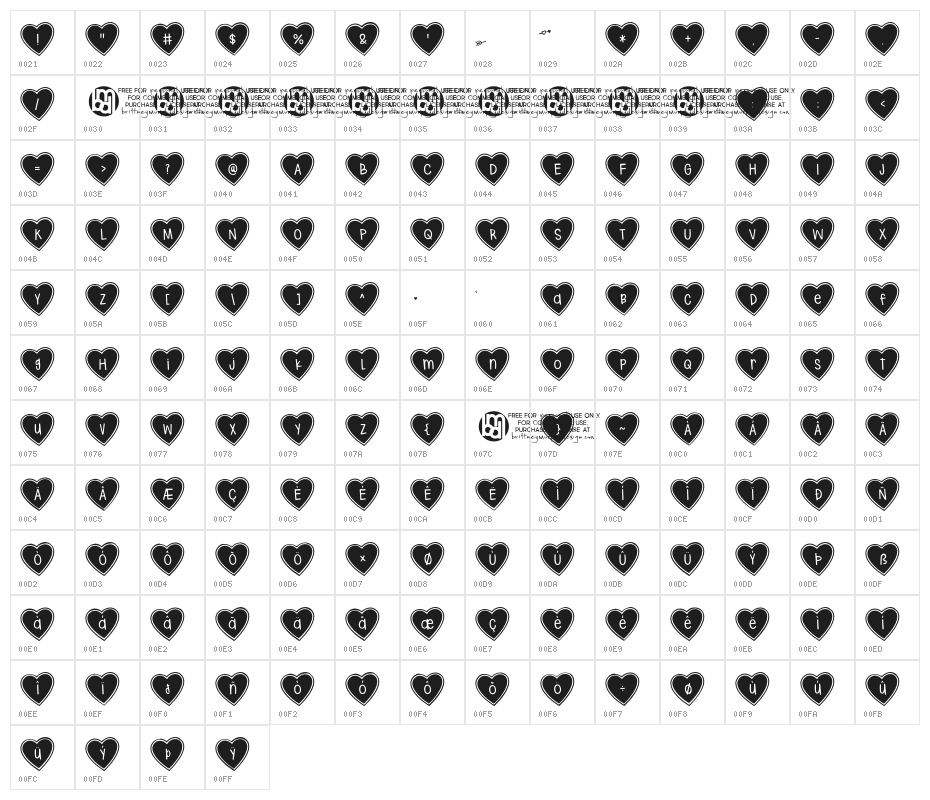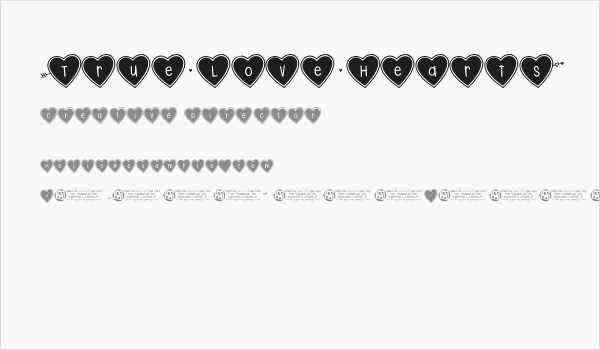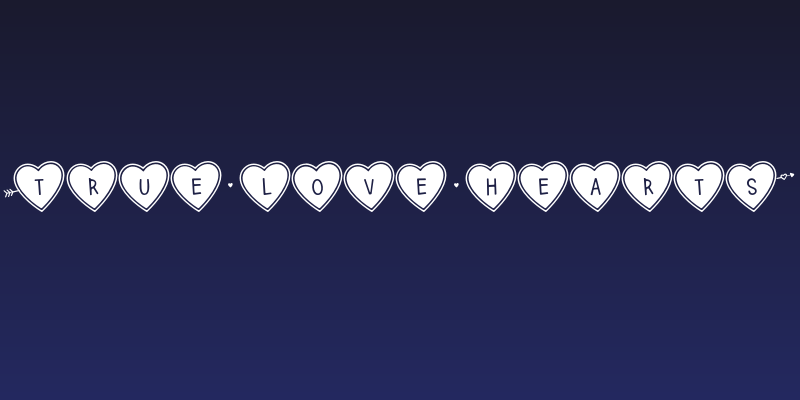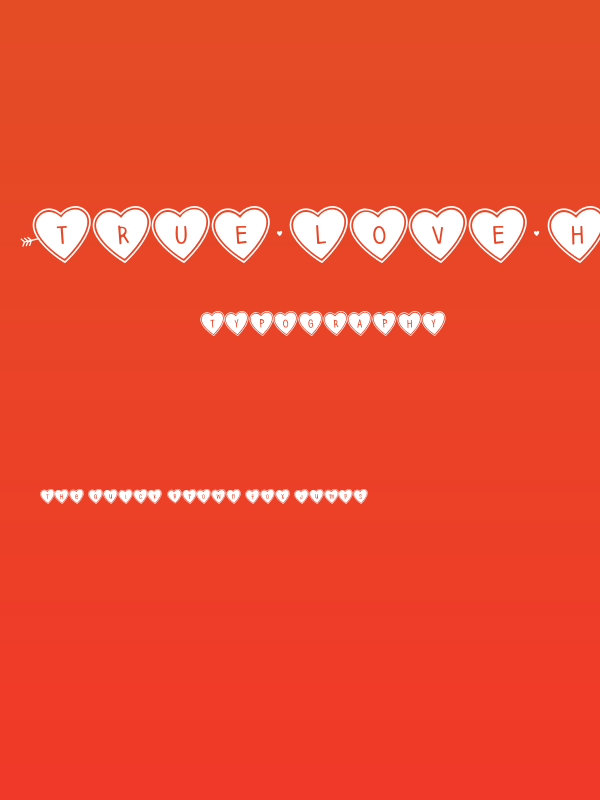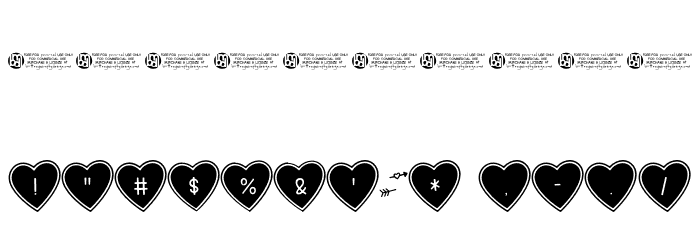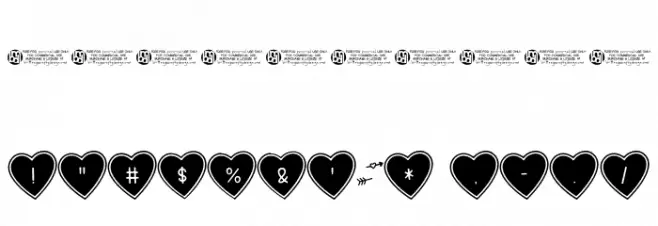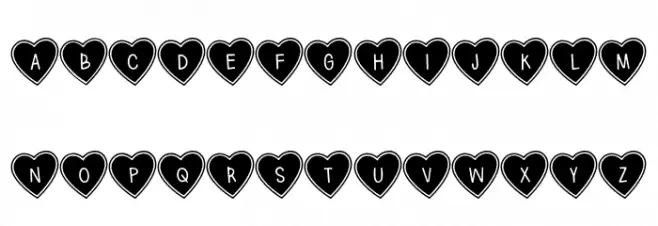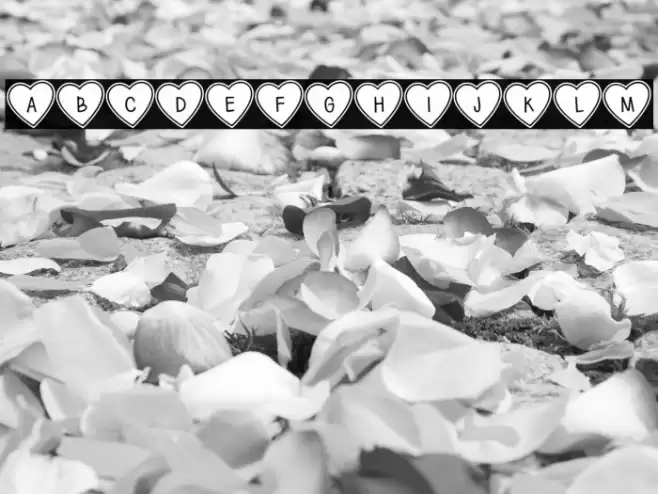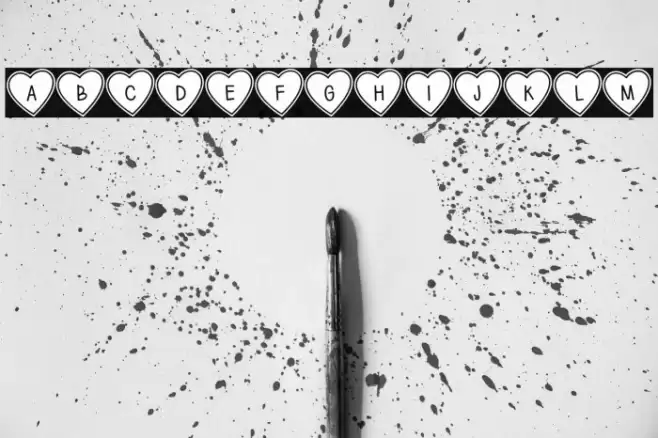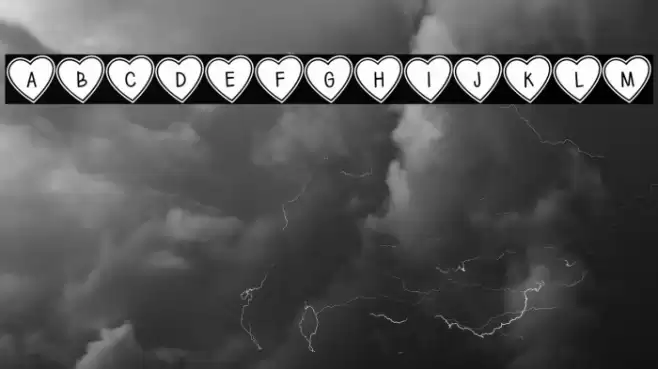
(True_Love_Hearts) Font
✎ Valentine
| 用途 | Headlines, Logos, Invitations |
| おすすめプロジェクト | Ideal for Valentine's Day cards, wedding invitations, love-themed posters, and playful branding. |